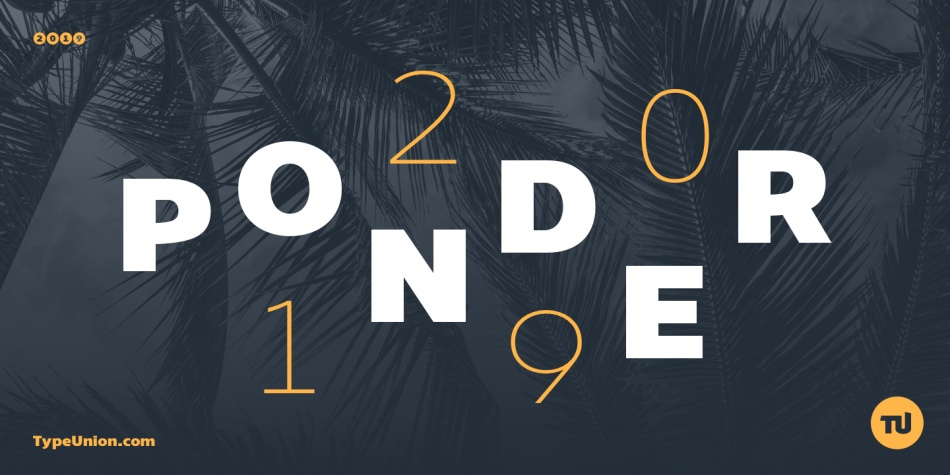
Ponder Font
Ponder Font is perfect for philosophical publication designs, contemplative brand identities, mindfulness center materials, academic research presentations, thoughtful editorial layouts, reflective wellness campaigns, scholarly journal formatting, and introspective lifestyle branding.
What makes Ponder Font exciting is its thoughtfully contemplative character that invites deeper reflection and meaningful consideration through carefully balanced letterforms that seem to pause and encourage mindful reading. The font features serene proportions with contemplative details that create space for thought and reflection, embodying the gentle wisdom that comes from taking time to truly consider ideas and insights. Its meditative aesthetic and intellectual depth make it perfect for brands that want to communicate thoughtfulness, wisdom, and the valuable practice of deep reflection while creating memorable experiences that encourage audiences to slow down and engage meaningfully with important ideas.
Ponder Font family includes various contemplative weights such as Light, Regular, Medium, and Bold variations, often featuring thoughtful stylistic alternates and reflective decorative elements. The family may include philosophical symbols, contemplative ornaments, and mindful ligatures that enhance the font's introspective aesthetic, providing designers with comprehensive options for creating meaningful typographic compositions that honor the art of thoughtful communication and intellectual reflection.